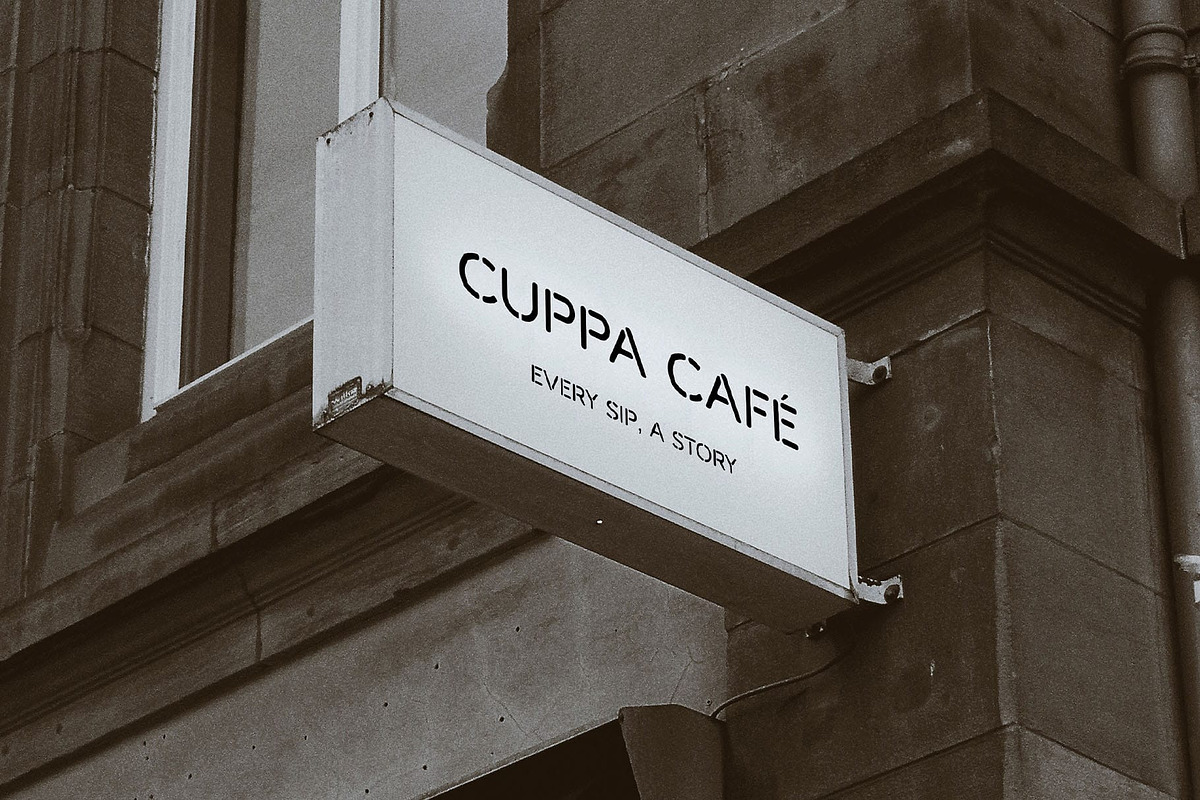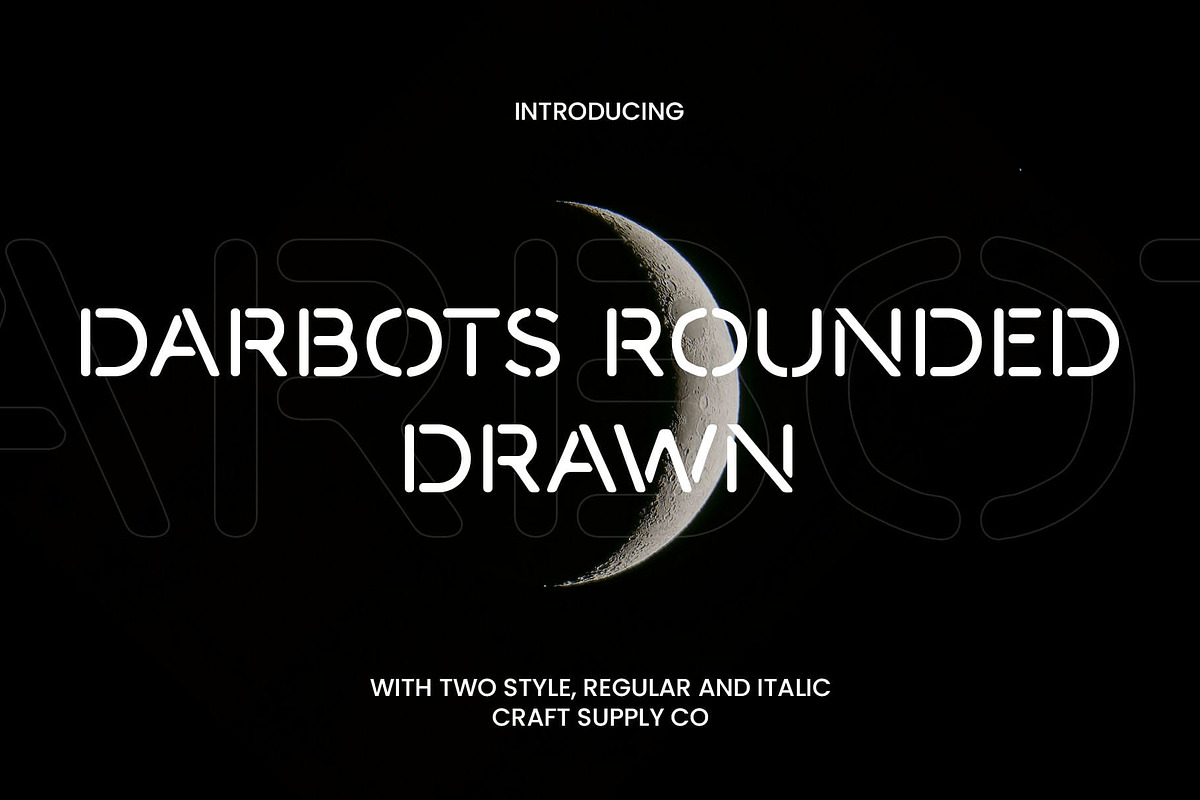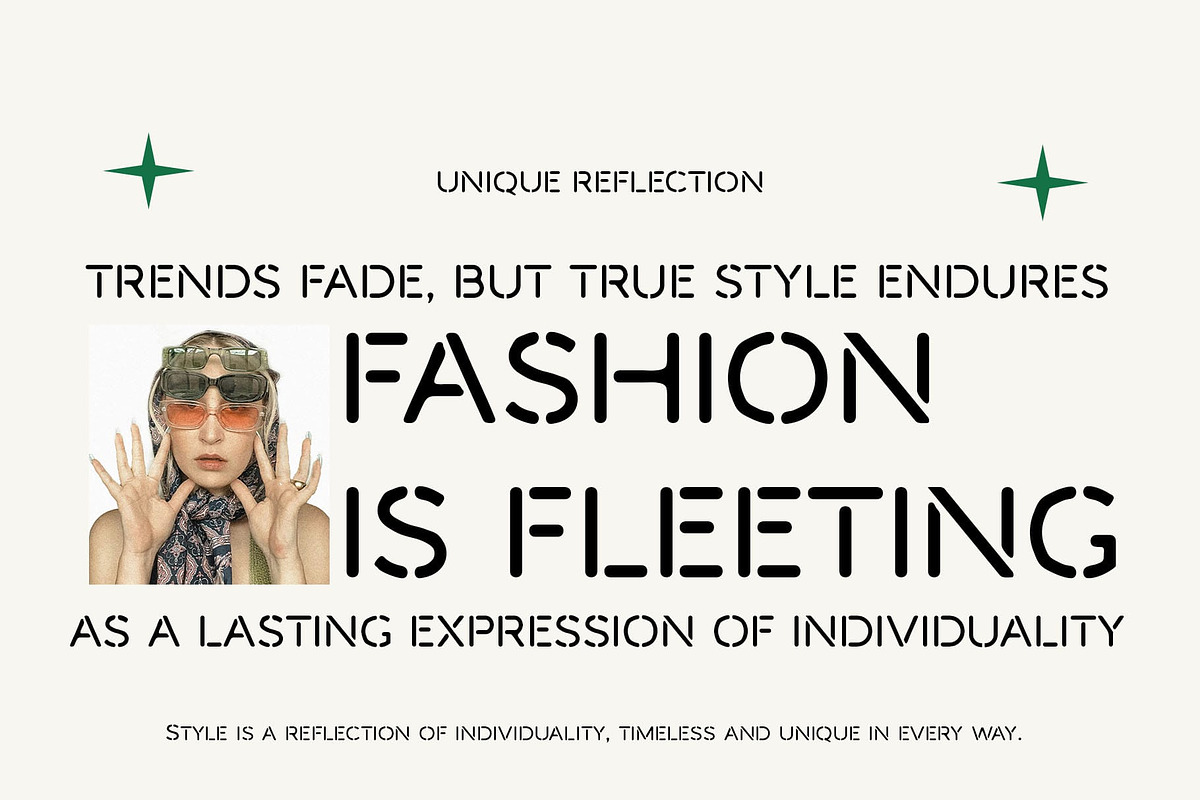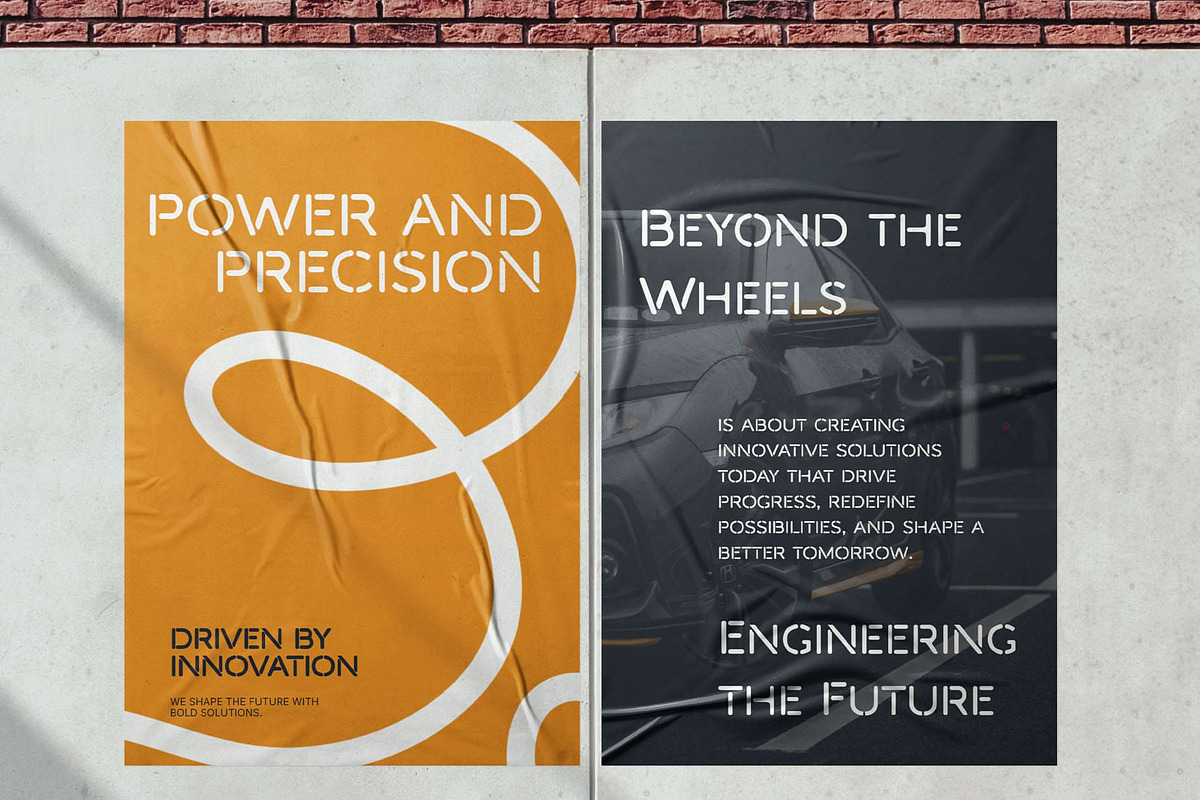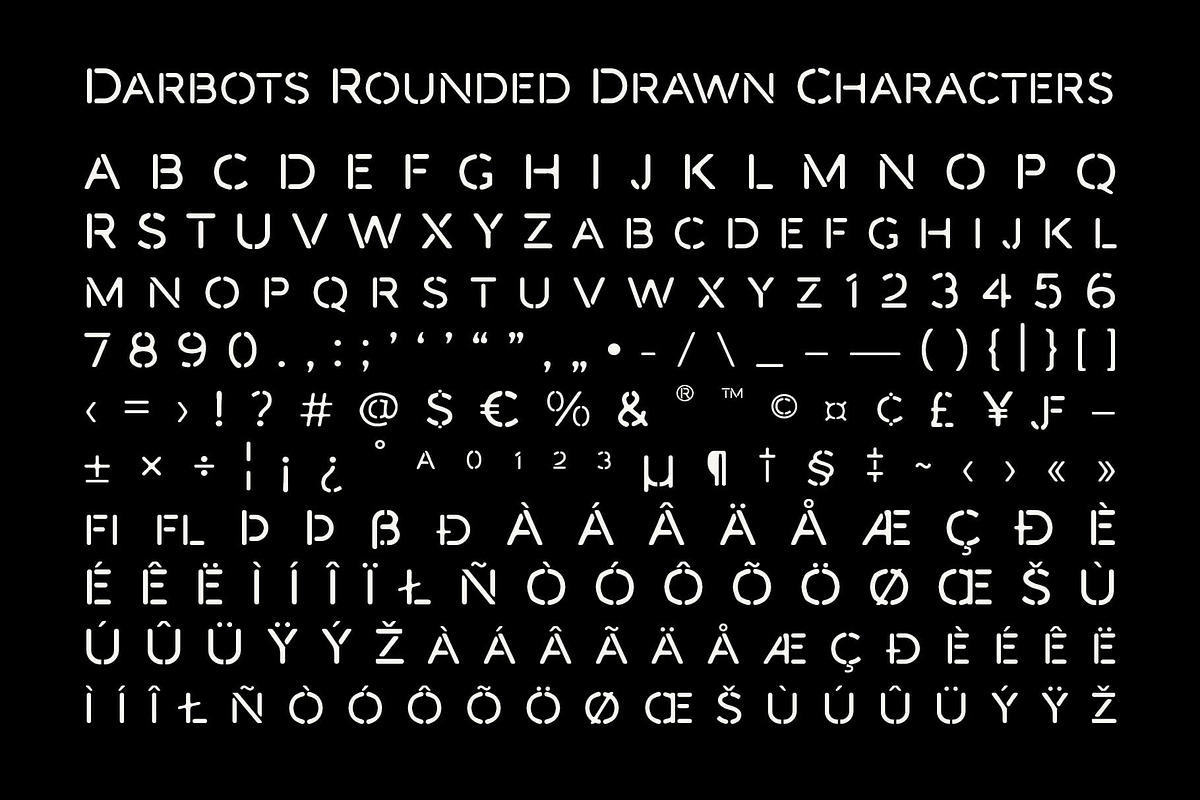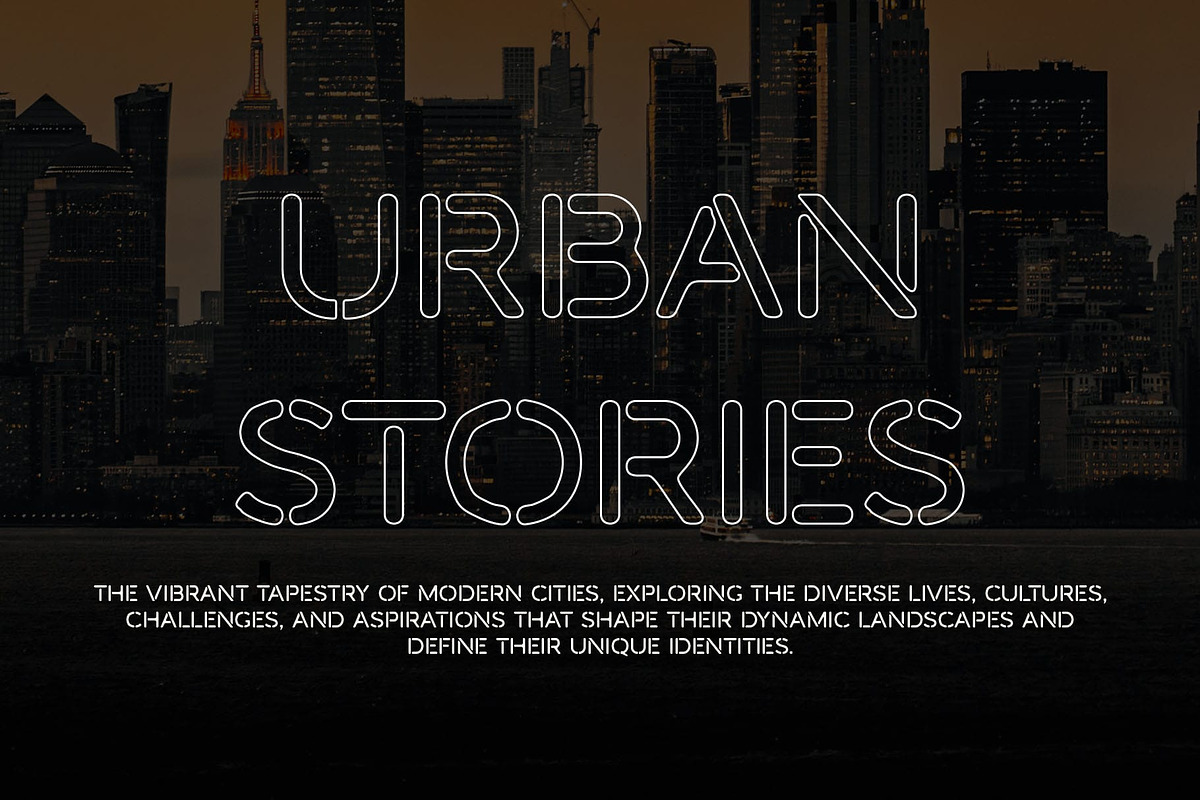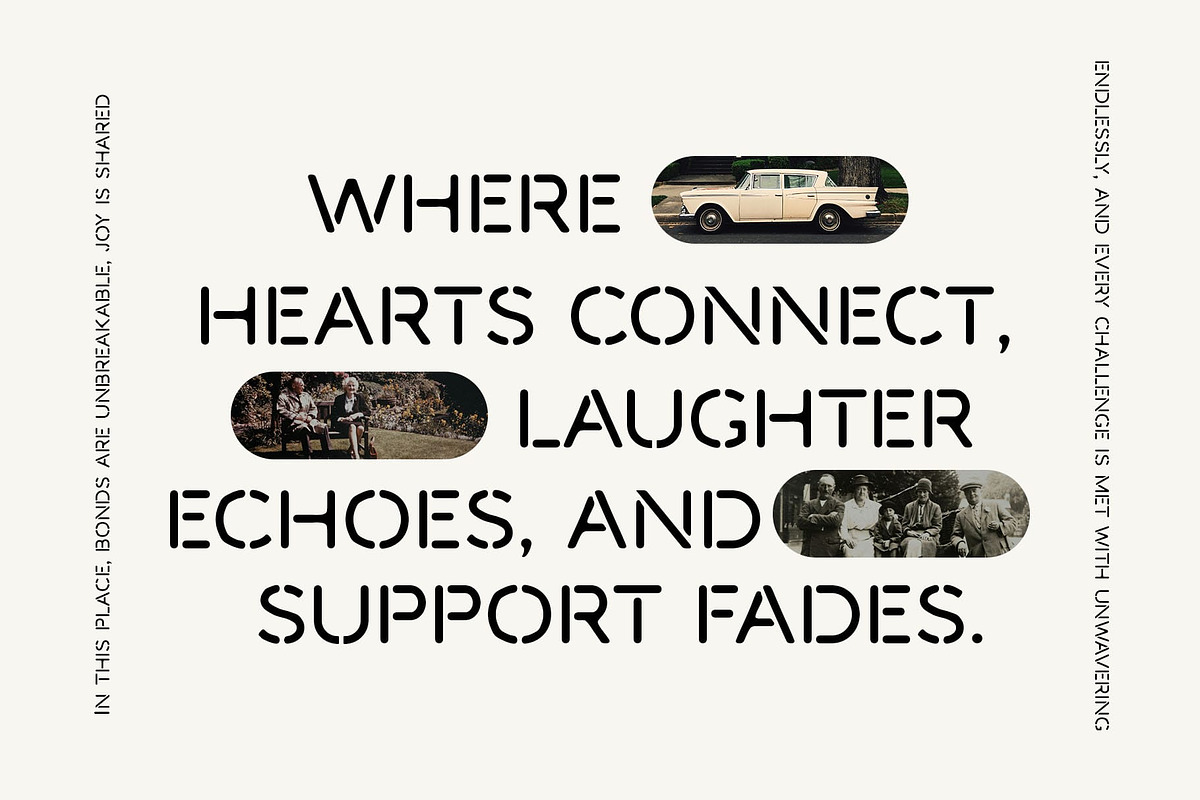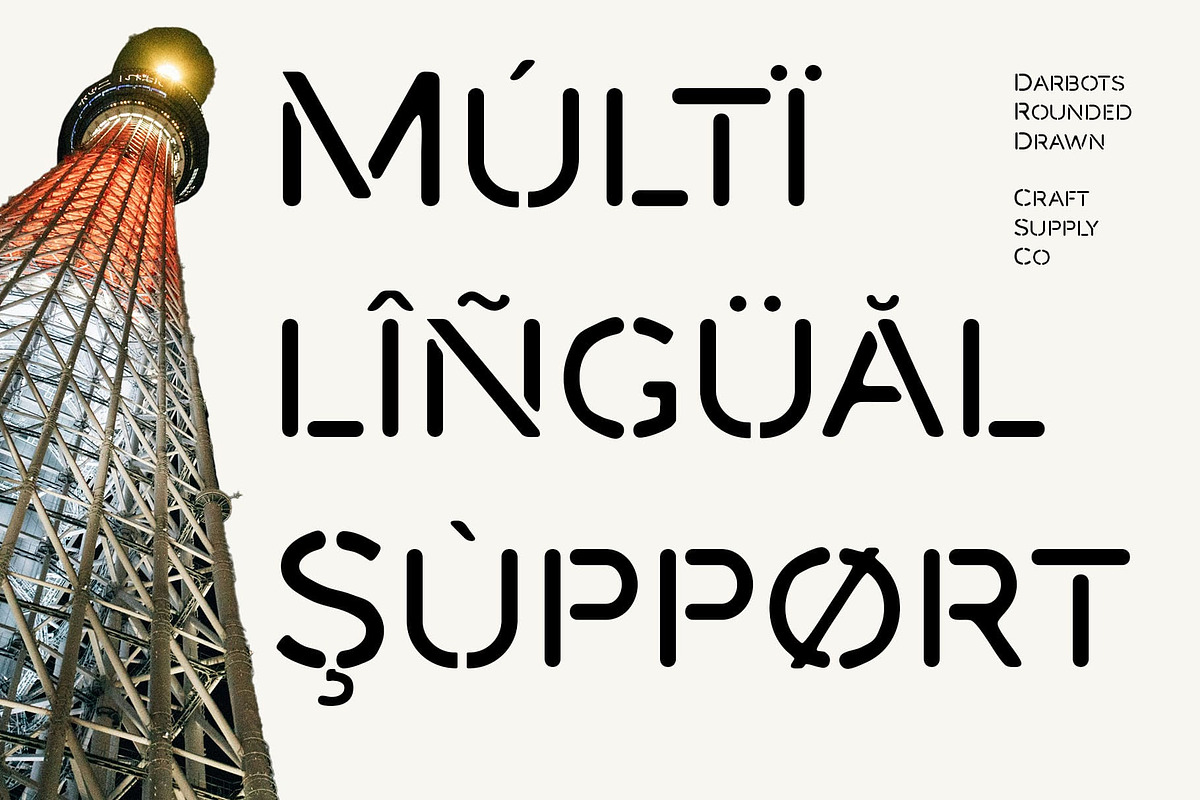
Darbots Rounded Drawn
Darbots Rounded Drawn: Futuristic Meets Handcrafted
Modern Sans-Serif with Rounded and Stencil Shapes This is a modern sans-serif font that blends rounded letterforms with bold stencil shapes, creating a unique and contemporary look. The rounded edges offer a friendly and approachable vibe, while the stencil elements inject an industrial and cutting-edge feel. This combination makes it perfect for designs that need to balance modern aesthetics with an inviting and creative atmosphere.
Hand-Drawn Effect for Organic Appeal The hand-drawn effect adds an artistic touch, imbuing the font with a personal and organic feel. This detail introduces a sense of craftsmanship, making this font ideal for projects that require both uniqueness and warmth.
Versatile for Creative Applications Whether used in branding, posters, or experimental designs, this modern, rounded, drawn sans-serif font strikes a balance between modernity and creativity. Its distinctive style makes it an excellent choice for forward-thinking projects with an artistic edge.
Blending Functionality and Style With its combination of clean sans-serif forms and imaginative detailing, this drawn font offers functionality without sacrificing character. Use it to create eye-catching headlines, logos, or promotional materials that exude originality.